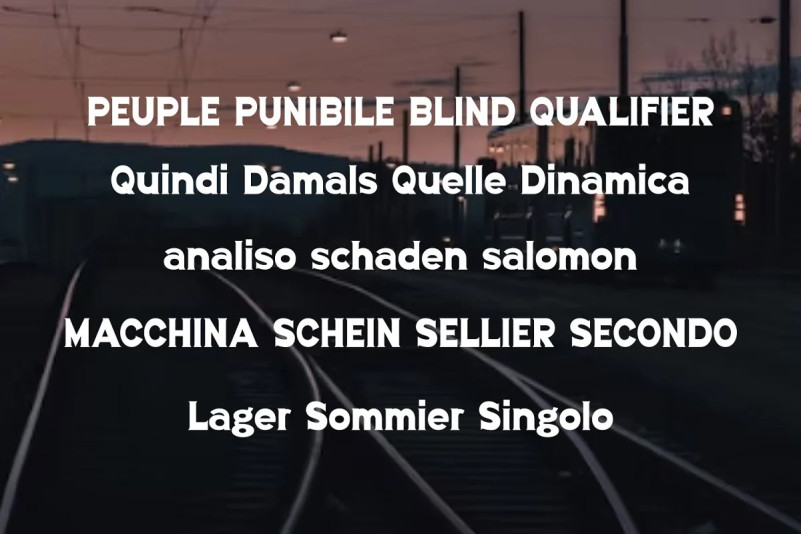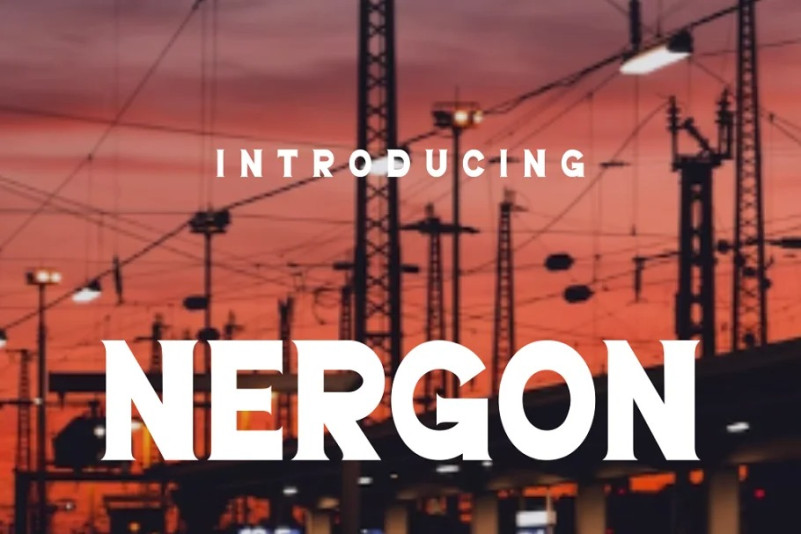
Nergon Font
Nergon Serif Font is a cool and unique serif font. No matter the topic, this font will be an incredible asset to your fonts’ library, as it has the potential to elevate any creation. Nergon Perfectly suited on print/screen. It’s perfect for Branding, name card, poster, logo, magazine, cover, banner, t-shirt and headers, or even large-scale artwork.